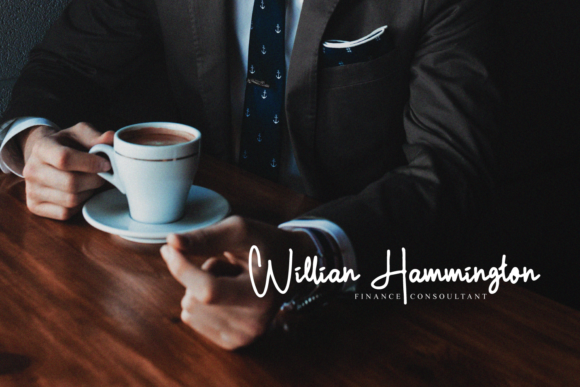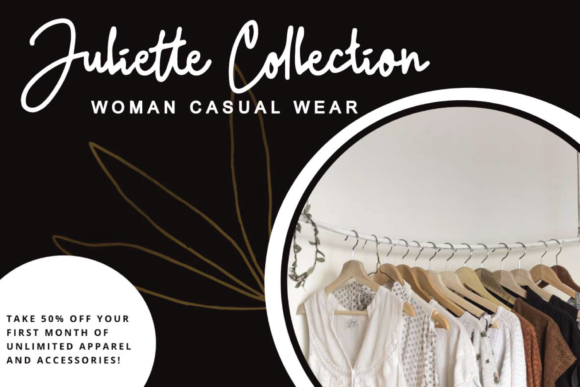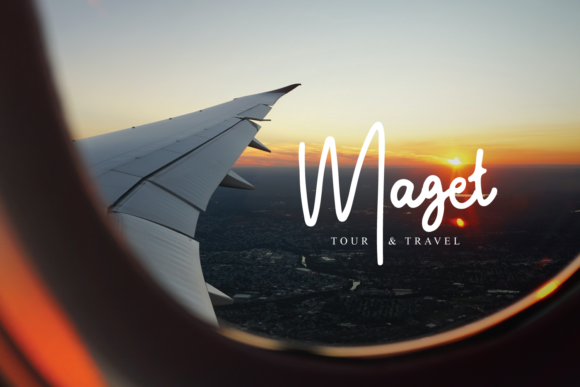
Introduction to Marielle Signature Font
Remember that moment when you finally nailed the perfect design for your creative project? The one where all the elements came together, and you felt like you were on top of the world? That’s what happens when you have the right design resources at your fingertips – like the Marielle Signature Font. This whimsical script font is more than just a pretty face; it’s a game-changer for designers looking to elevate their work.
With its relaxed theme and lovely style, the Marielle Signature Font is the perfect addition to any designer’s library. Whether you’re working on a free download or a high-quality design project, this font is sure to bring a touch of magic to your creations. Plus, with its transparent background, it’s incredibly versatile and easy to use.
As a valuable design resource, the Marielle Signature Font is a must-have for any designer looking to take their work to the next level. So why settle for ordinary when you can have extraordinary? Let’s dive in and explore the world of Marielle Signature Font.
Key Features of Marielle Signature Font
- Unique and elegant script font perfect for creative projects, such as wedding invitations, social media graphics, and branding materials.
- High-quality font with transparent background, allowing for seamless integration with any design resource.
- Designed with a beautiful, flowing script that is ideal for adding a touch of sophistication to any design project.
- Perfect for designers, artists, and small business owners looking for a high-quality, free design resource to elevate their branding and marketing materials.
Honest Review: Marielle Signature Font
I recently had the chance to work with the Marielle Signature Font, and I must say it’s been a great addition to my design resource library. This high-quality font is perfect for any creative project that requires a touch of elegance and sophistication.
- What works well:
- ✨ The font’s unique, cursive design is perfect for creating eye-catching headings and titles.
- ✨ The transparent background option allows for seamless integration with any background image or color.
However, I did encounter a few limitations with the Marielle Signature Font:
- ⚠️ The font can be quite heavy, which may make it difficult to read at smaller font sizes.
Overall, I’m impressed with the Marielle Signature Font’s high quality and versatility. While it may have some limitations, it’s definitely worth considering for your next creative project. Plus, it’s available for free download, making it a great resource for designers.
The Marielle Signature Font is a free download design resource perfect for creative projects requiring a touch of elegance. Its high quality and versatility make it an ideal choice for various design applications.
Tips for Getting the Most Out of Marielle Signature Font
Use the Marielle Signature Font on a transparent background to create a sleek and modern design. Experiment with different font sizes and styles to add visual interest to your creative project. Consider pairing the font with a high-quality image or graphic to enhance its impact.
The Marielle Signature Font is ideal for creative projects such as branding, marketing materials, and social media graphics. It’s also perfect for creating elegant invitations, certificates, and other formal documents.